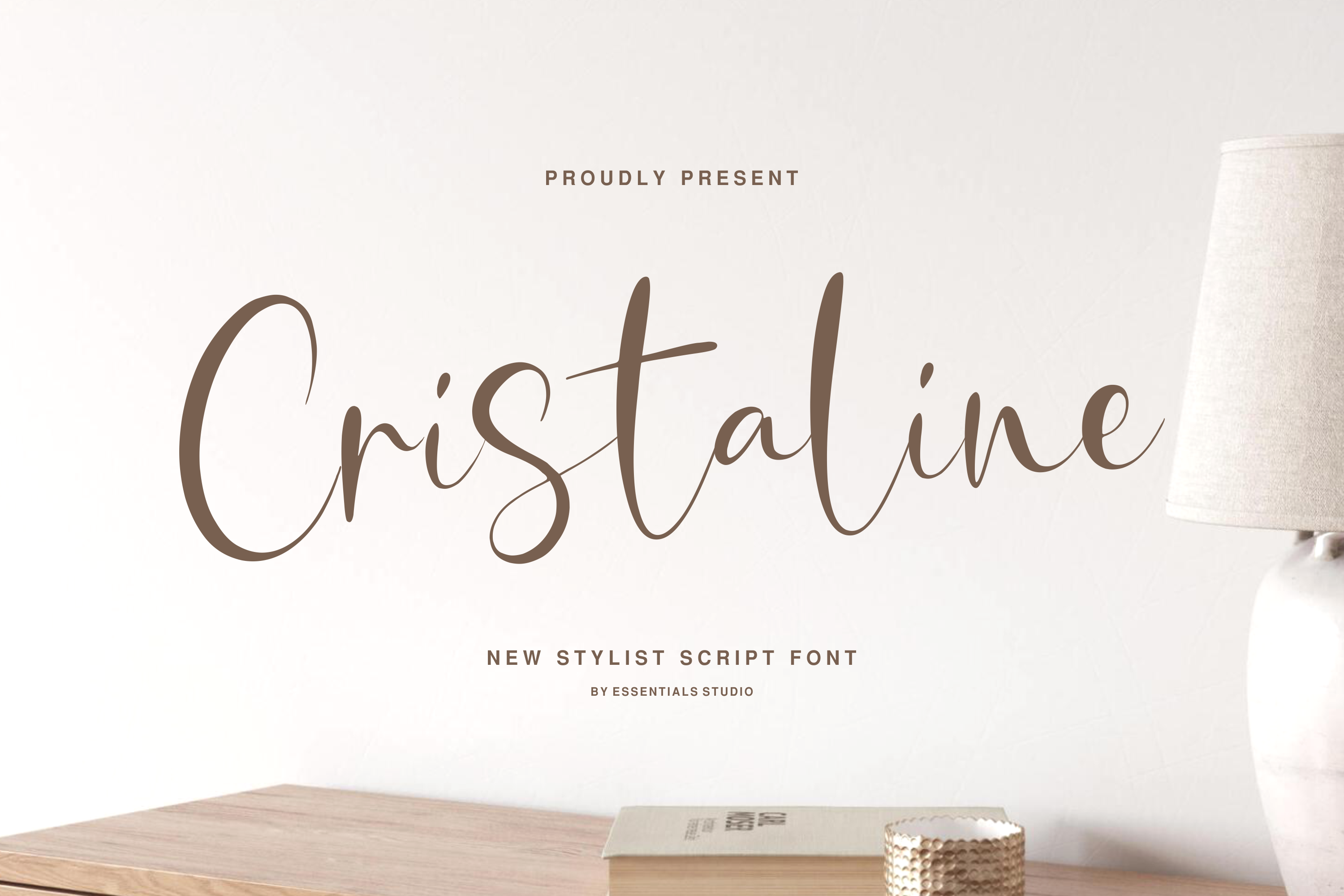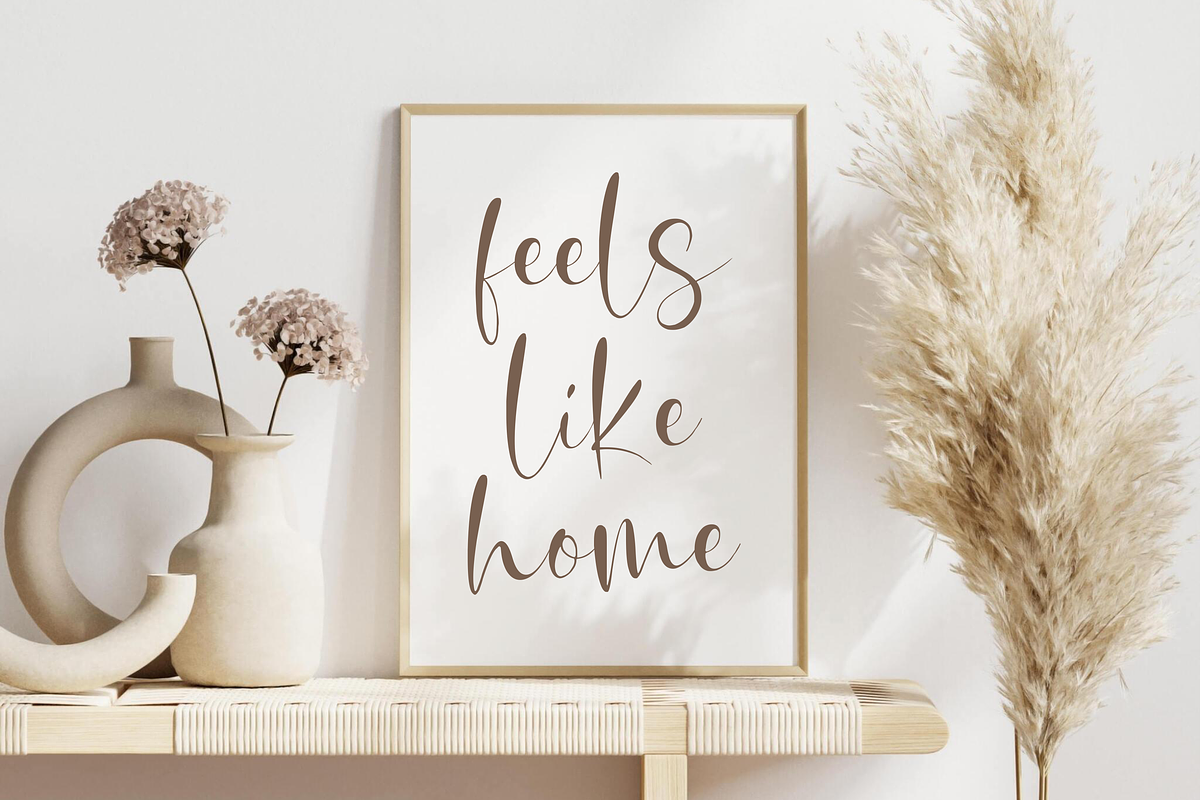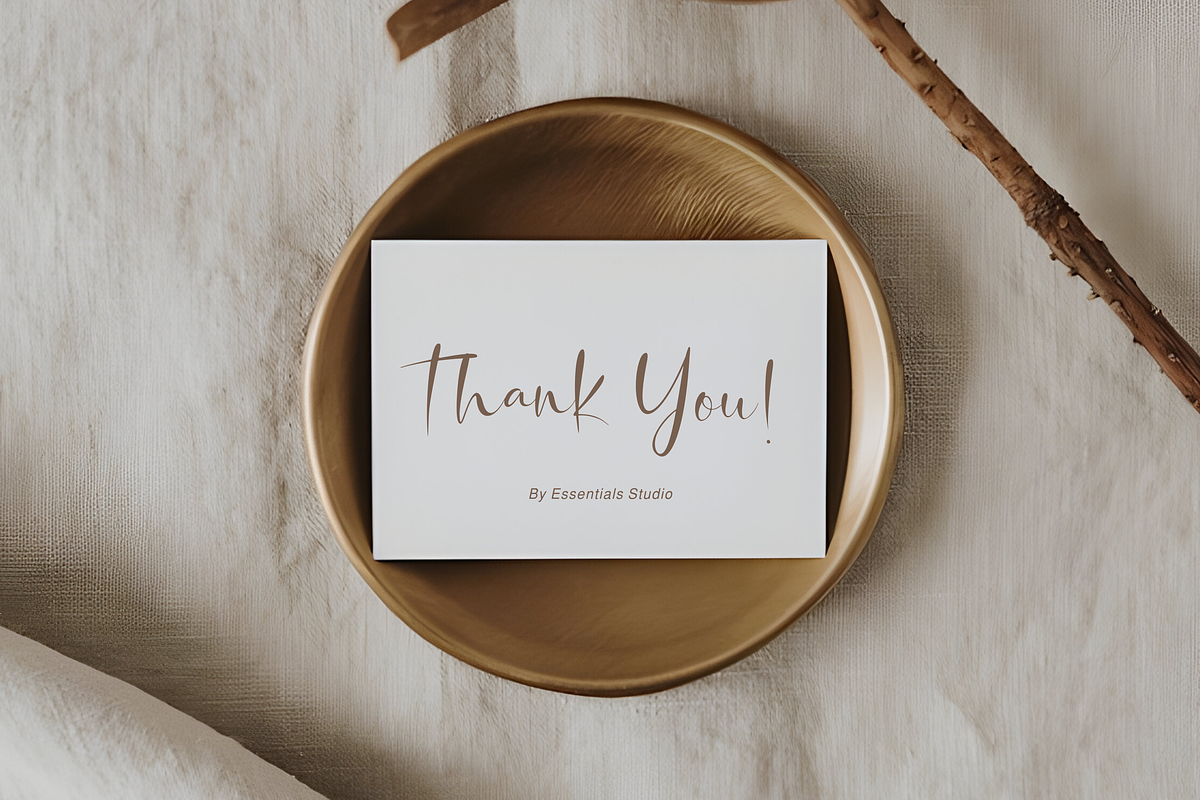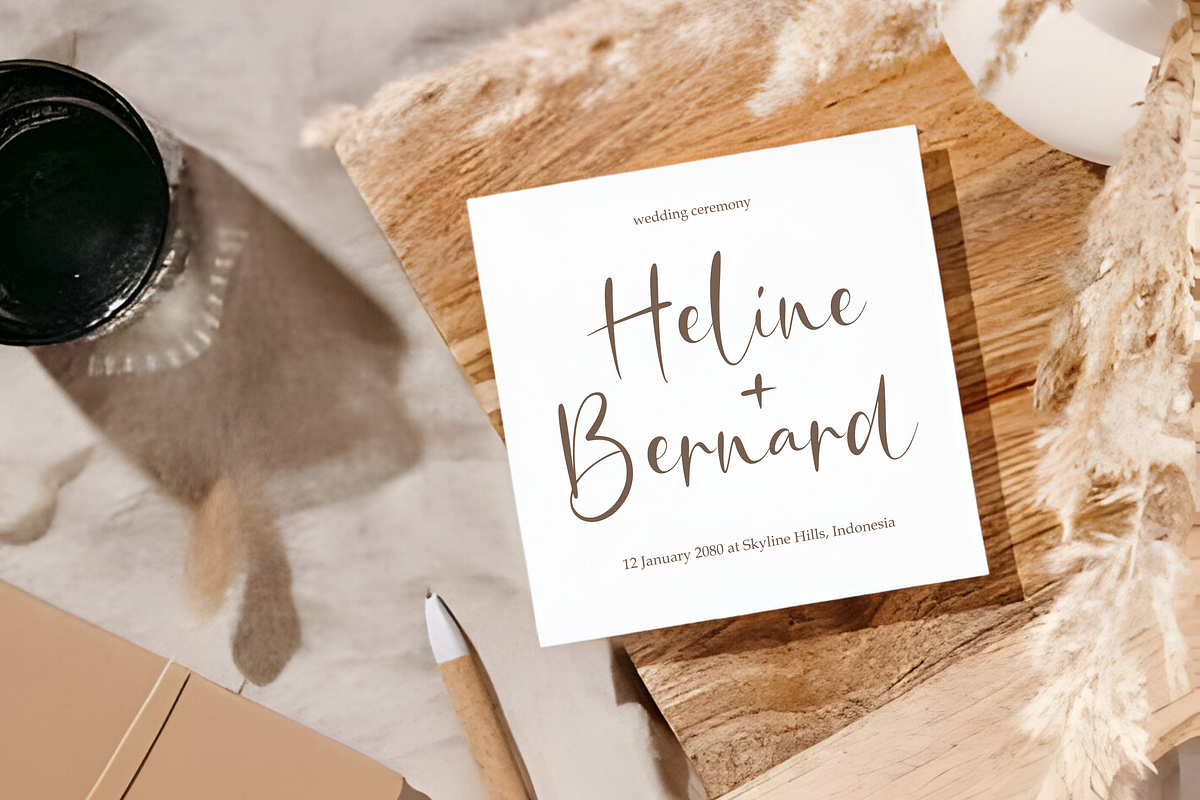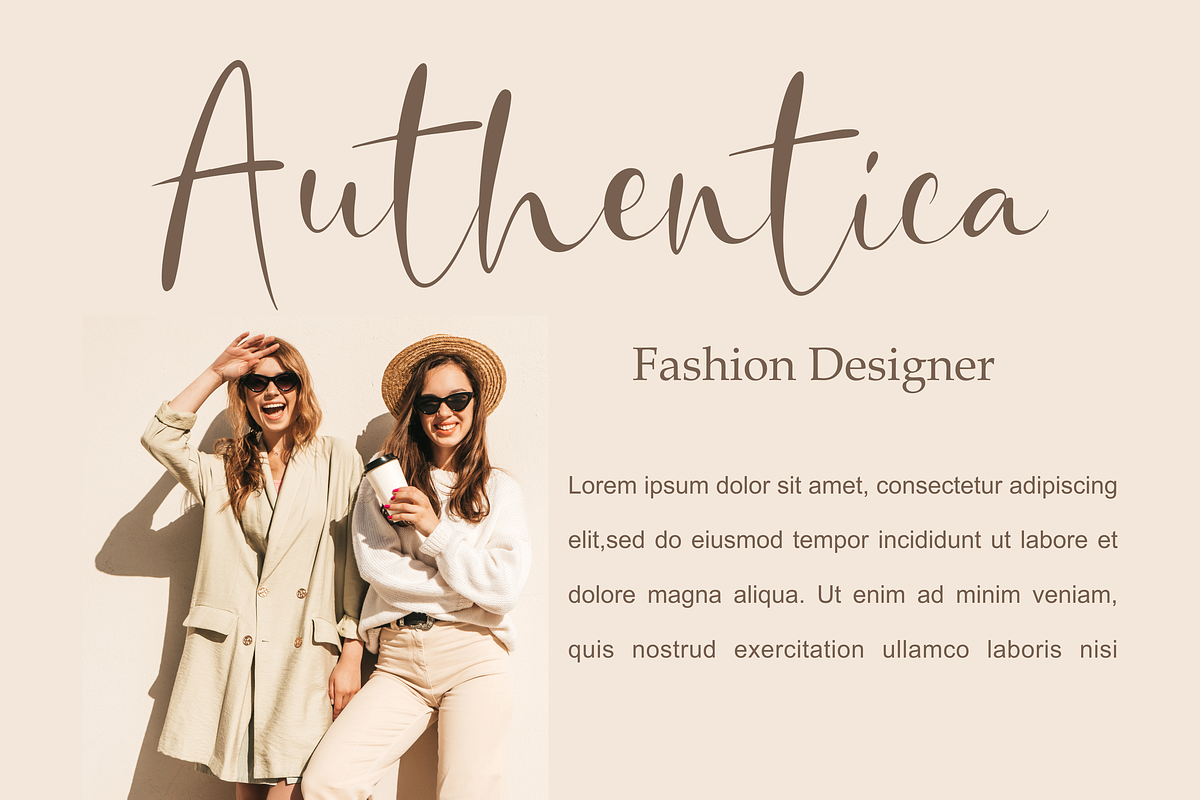
Cristaline - Stylish Script Font
Proudly Present, Cristaline
Cristaline Is A New Stylish Handwritten Script Font By Essentials Studio
Cristaline is perfect for product packaging, branding project, megazine, social media, wedding, or just used to express words above the background.